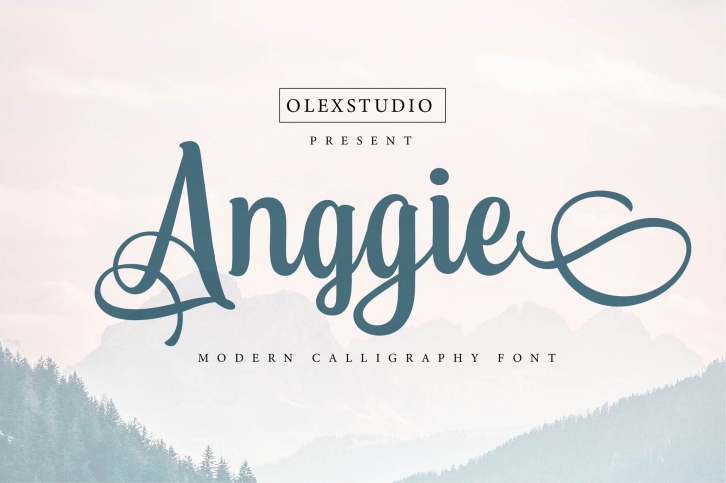
ANGGIE Script
ANGGIE Script is a beautiful Script font Typeface, This Font will look gorgeous on all your designs, book, branding materials, logo's, t-shirt, poster, baby fashion product, comic, quotes and all project design other.
ANGGIE Script contains standard characters, lowercase, Uppercase, Stylistic Alternates, numbers, punctuation, ligatures and international glyphs.You will receive OTF, TTF and WEBFONT files.